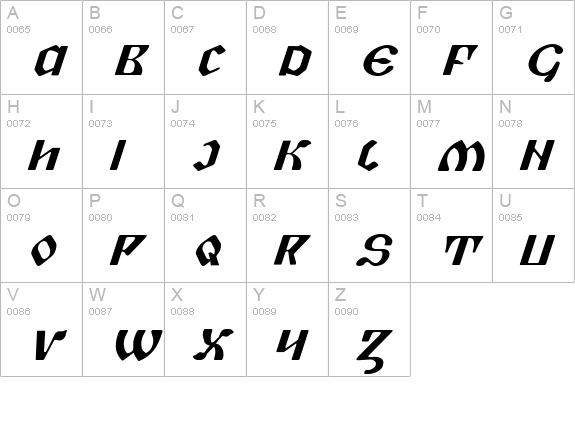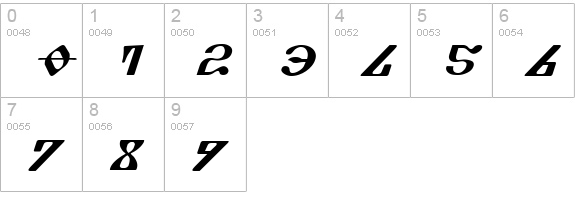
Piper Pie ExpItal font is a stylish and modern typeface that exudes sophistication and elegance. With its elongated letterforms and sharp edges, this font is perfect for creating eye-catching headlines and titles. The sleek design of Piper Pie ExpItal font adds a touch of luxury to any project, making it ideal for branding, packaging, and editorial design. Best of all, Piper Pie ExpItal font is completely free to download at FontsMarket.com. Whether you're a professional designer looking to elevate your work or a hobbyist seeking to add a touch of flair to your projects, this font is the perfect choice. Don't miss out on the opportunity to enhance your designs with the stunning Piper Pie ExpItal font - download it for free today!